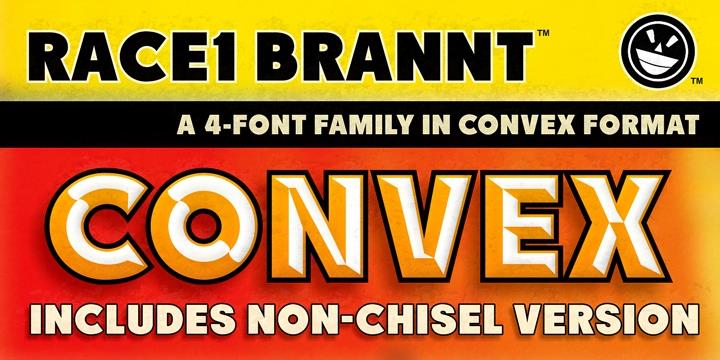
Download and enjoy this free race1 brannt ncv font. Cool typeface to showcase your designs in a modern way. Font Space has created this amazing and beautiful font. This is absolutely cool font so you can easily make world-class designs.